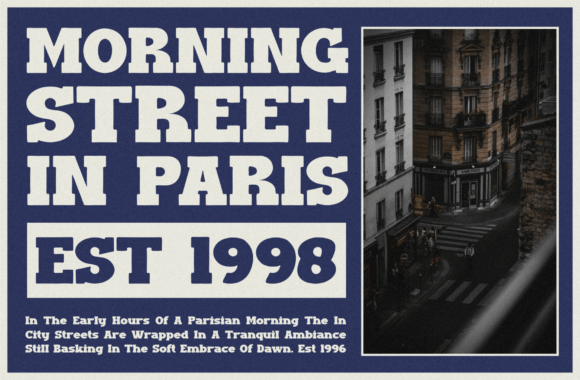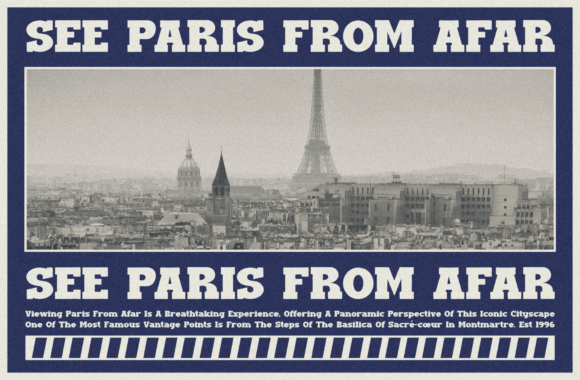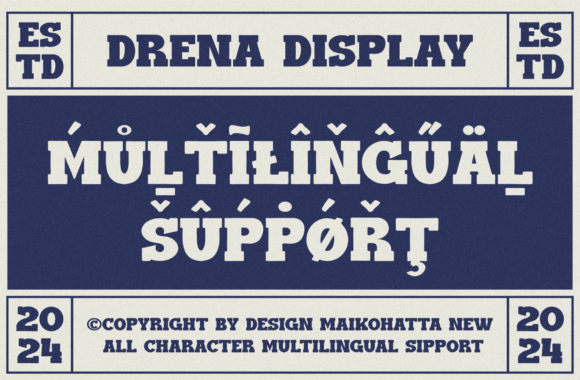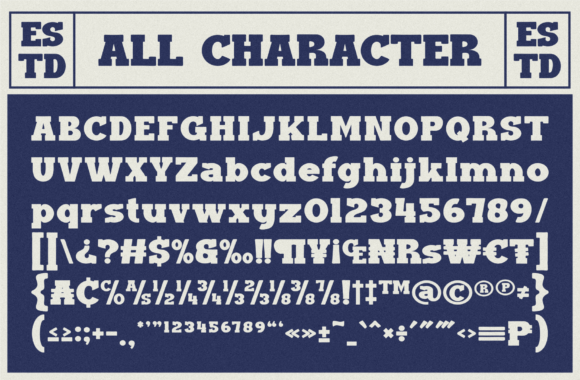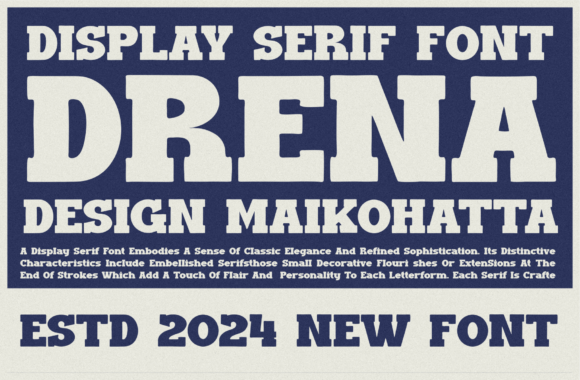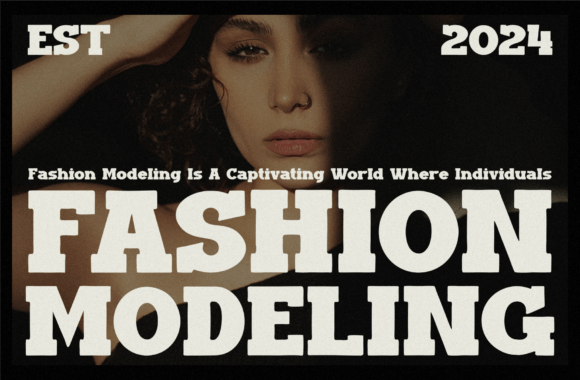
Introducing Drena: Elevate Your Designs with a Timeless Display Serif Font
In the world of typography, the right font can make all the difference in the success of a design project. At [Your Company Name], we’re excited to introduce our latest creation: **Drena**, a stunning display serif font designed to bring a touch of classic elegance to your visual creations. Whether you’re a designer, crafter, or simply someone who appreciates the art of typography, Drena is poised to become your new go-to font for projects that demand a bit of sophistication and flair.
What is Drena?
Drena is a meticulously crafted display serif font, characterized by its series of small or decorative projections called serifs at the ends of its characters. These serifs are not just aesthetic flourishes; they serve a functional purpose by enhancing the legibility of text, especially at smaller sizes. This makes Drena an excellent choice for a wide range of applications, from formal documents and books to print publications and digital media.
The Benefits of Serif Fonts
Serif fonts, like Drena, have been a staple of printed materials for centuries, and for good reason. Their classic appearance and ease of readability make them the preferred choice for many designers and publishers. Here are just a few benefits of using serif fonts in your projects:
- Improved Readability: The serifs on Drena’s characters guide the eye along the text, making it easier to read, especially in long passages of text.
- Classic Aesthetic: Serif fonts evoke a sense of tradition and formality, lending an air of authority and professionalism to any piece of writing.
- Versatility: Despite their classic appearance, serif fonts like Drena can be used in a variety of contexts, from elegant wedding invitations to comprehensive business reports.
Who is Drena For?
Drena is designed with the creative professional in mind, but its ease of use and versatility make it accessible to crafters, hobbyists, and anyone looking to elevate their design work. Here are a few examples of individuals and businesses that can benefit from using Drena:
- Graphic Designers: Looking for a font that can add a touch of sophistication to client projects, whether it’s a corporate brand guide or an advertising campaign.
- Book Publishers: Seeking a readable and classic font for the body text of their publications.
- Crafters and Makers: Creating handmade products, such as greeting cards, invitations, and art prints, that require a personal touch.
- Digital Content Creators: Needing a font that stands out in digital formats, from eBooks to website content.
Using Drena in Your Projects
Incorporating Drena into your workflow is straightforward. Here are a few tips for getting the most out of this versatile font:
- Pair with Sans-Serif Fonts: For maximum impact, try pairing Drena with a clean sans-serif font for headings and body text.
- Experiment with Sizes: Drena’s clear and elegant design makes it suitable for use at a variety of sizes, from large headings to smaller body text.
- Customize: Don’t be afraid to get creative with Drena. Its classic base makes it an excellent candidate for customization, whether through color, texture, or creative arrangement.
With the introduction of Drena, our new display serif font, we’re offering designers, crafters, and creatives a tool that combines timeless elegance with exceptional readability. Whether you’re working on a formal document, a personal project, or a commercial design, Drena provides the perfect blend of classic aesthetics and functional design. Experience the difference that a well-crafted serif font can make in your work. Try Drena today and discover how it can elevate your designs to new heights.